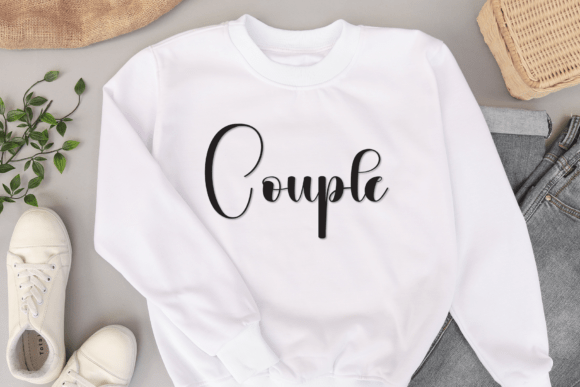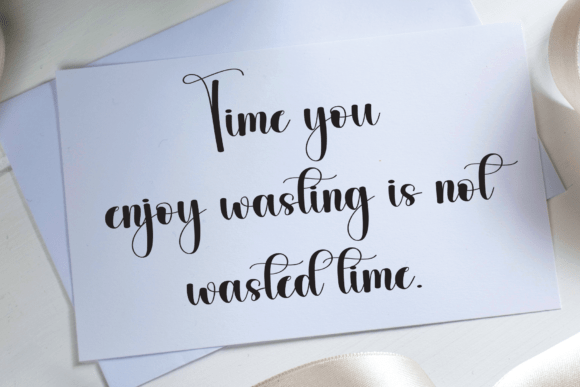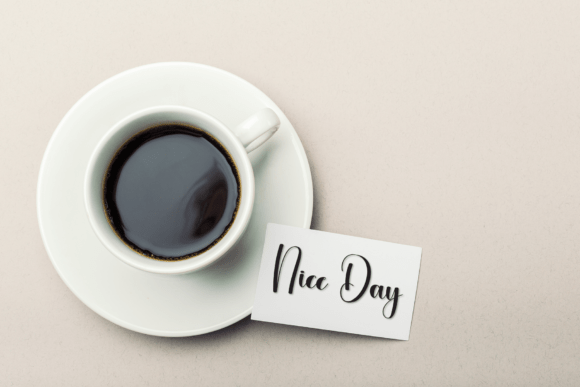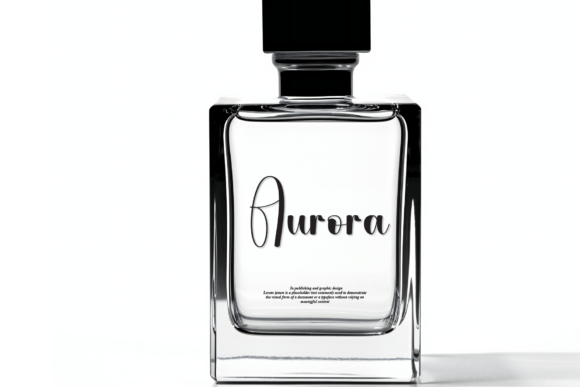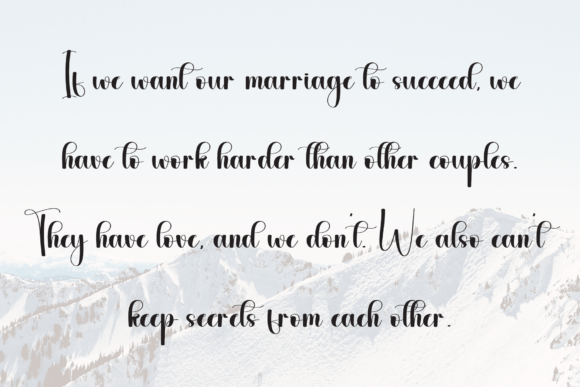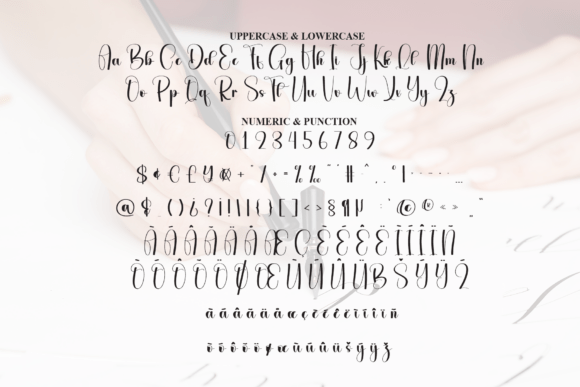
Introducing Autography Font: Elevate Your Design with Sophisticated Elegance
In the world of typography, few fonts manage to convey the essence of professionalism and elegance as effectively as Autography. This sophisticated and rhythmic script font is designed to bring a touch of high-end calligraphy to your designs, making it an ideal choice for those seeking to add a level of refinement and luxury to their work. With its unique blend of thick, grounded downstrokes and delicate, flowing connectors, Autography embodies a professional calligraphic aesthetic that is sure to leave a lasting impression.
The Distinctive Features of Autography
One of the standout features of Autography is its high-contrast visual rhythm. This is achieved through the careful balance of thick, substantial downstrokes and delicate, flowing connectors. The result is a font that exudes confidence and sophistication, making it perfect for high-end corporate branding, professional signature watermarks, upscale lifestyle marketing, and creative editorial headers.
Another defining characteristic of Autography is the use of expansive, looping ascenders and descenders. These creative elements add a sense of customized, artisanal signature work to your designs, giving them a unique and personalized touch. This feature is particularly effective in creating a sense of luxury and exclusivity, making Autography an excellent choice for brands seeking to convey a sense of high-end quality.
Applications for Autography
Autography’s versatility and elegance make it suitable for a wide range of applications. Here are some of the most effective ways to utilize this exceptional font:
- High-End Corporate Branding: Use Autography to create a sophisticated and professional image for your brand. Its elegant lines and refined aesthetic make it perfect for logos, letterheads, and other corporate materials.
- Professional Signature Watermarks: Add a touch of luxury to your documents and designs with Autography’s beautiful, flowing script. This font is ideal for creating professional signature watermarks that convey a sense of authority and expertise.
- Upscale Lifestyle Marketing: Autography’s sophisticated aesthetic makes it an excellent choice for upscale lifestyle marketing materials, such as luxury goods advertising, high-end fashion branding, and exclusive real estate marketing.
- Creative Editorial Headers: Use Autography to add a touch of elegance and sophistication to your editorial designs, such as magazine headers, article titles, and book covers.
Why Choose Autography?
With so many fonts available, why choose Autography? Here are just a few reasons why this exceptional font stands out from the crowd:
- Unique and Memorable: Autography’s distinctive features and elegant aesthetic make it a unique and memorable font that will help your designs stand out.
- Highly Versatile: Autography’s versatility makes it suitable for a wide range of applications, from corporate branding to creative editorial design.
- Exceptional Quality: Autography is crafted to exceptionally high standards, ensuring that your designs look professional and polished.
Tips for Using Autography Effectively
To get the most out of Autography, here are a few tips to keep in mind:
- Use it Sparingly: Autography’s elegance and sophistication are best showcased when used sparingly. Use it for headlines, titles, or key design elements to create a lasting impression.
- Experiment with Colors: Autography looks stunning in a range of colors, from metallic gold and silver to rich jewel tones. Experiment with different colors to find the perfect match for your design.
- Pair it with Contrasting Fonts: Autography’s elegant script looks beautiful when paired with contrasting fonts, such as bold sans-serifs or classic serif fonts.
Autography is a truly exceptional font that embodies the essence of sophistication and elegance. With its high-contrast visual rhythm, expansive looping ascenders and descenders, and refined aesthetic, this font is perfect for designers and crafters seeking to add a touch of luxury and professionalism to their work. Whether you’re working on high-end corporate branding, professional signature watermarks, upscale lifestyle marketing, or creative editorial headers, Autography is an excellent choice. So why settle for ordinary fonts when you can elevate your design with the sophistication and elegance of Autography?